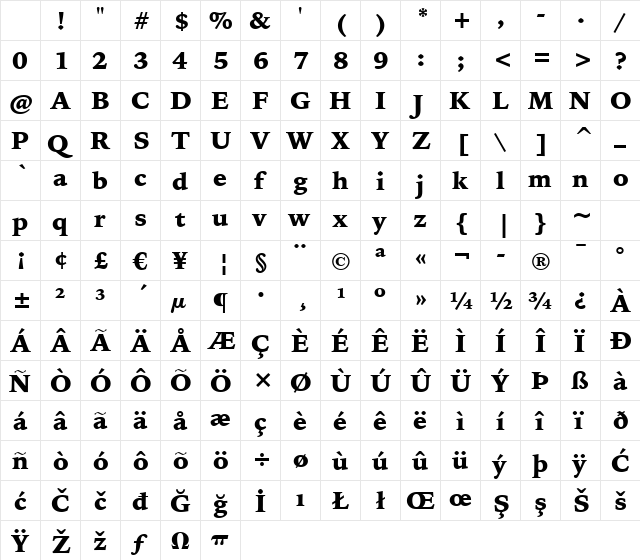
IowanOldSt Blk BT Black
Design Context for IowanOldSt Blk BT
IowanOldSt Blk BT is a composed and adaptable typeface that performs quietly and consistently across a wide range of design contexts.
Pro Tip: Use IowanOldSt Blk BT in both headline and body roles to test its range before committing to a single application.